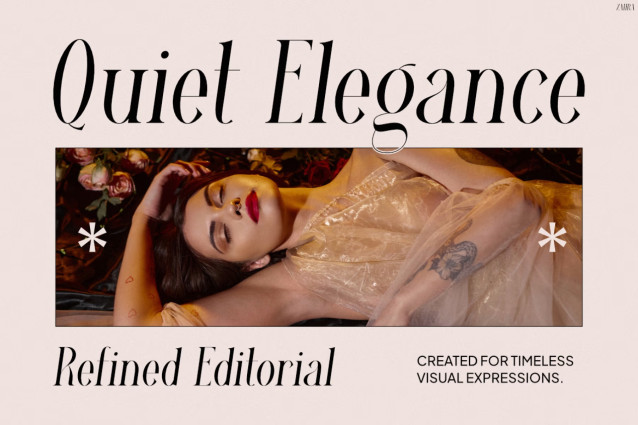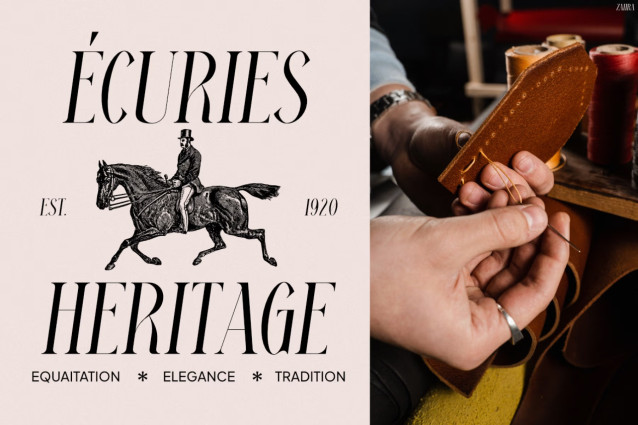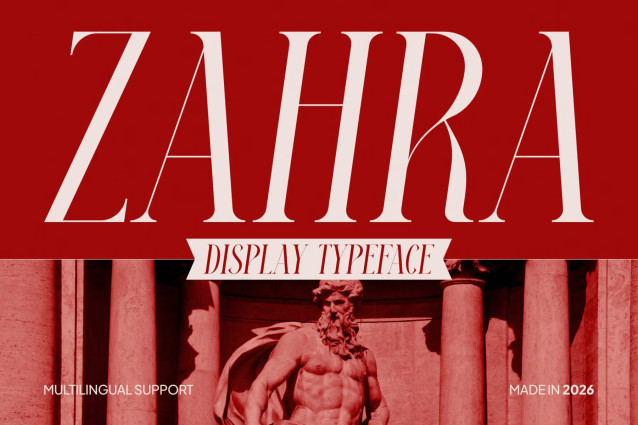
Zahra – Luxury Editorial Serif for Fashion, Beauty & Instagram Branding
Instagram Font Zahra is a refined editorial serif designed to bring timeless sophistication to every creative project. With graceful high-contrast strokes, elegant curves, and beautifully balanced proportions, this typeface delivers a polished look that feels both modern and classic. Moreover, its delicate details create a luxurious visual rhythm while maintaining exceptional readability. As a result, every headline, logo, and editorial layout feels effortlessly stylish and memorable.